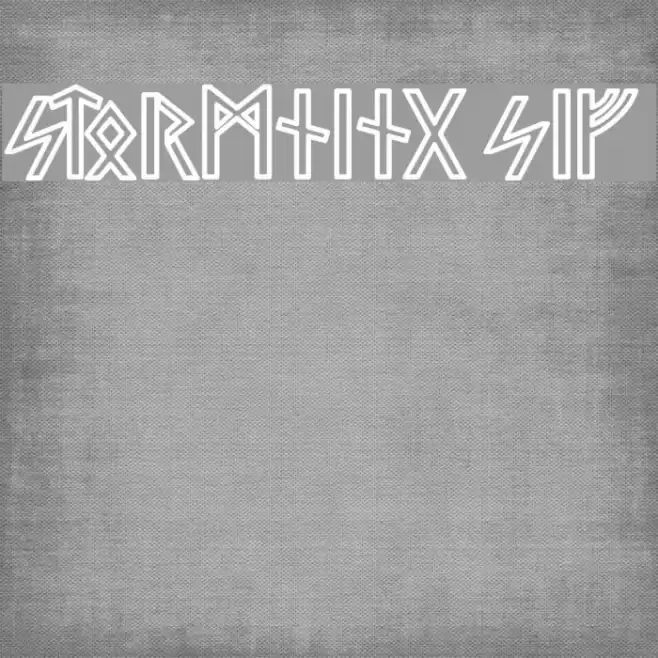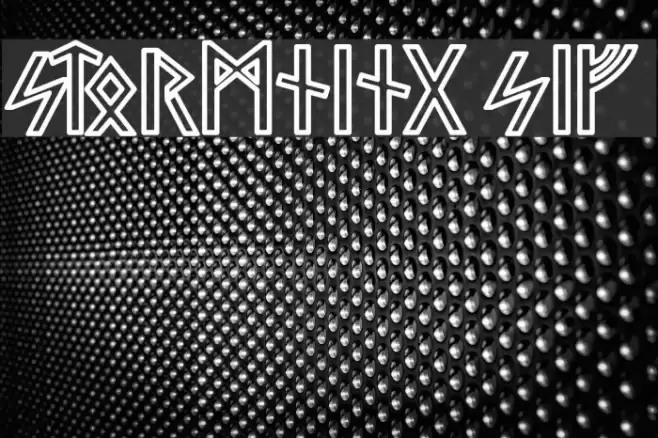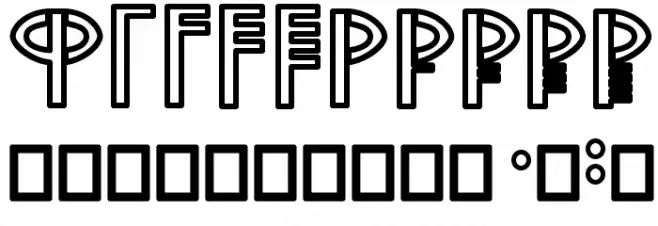
Stormning Sif Font
Stormning Sif Description
This font features a unique, angular design reminiscent of ancient runes or Nordic script. Each character is crafted with sharp, geometric lines that create a sense of mystery and intrigue. The uppercase letters are bold and commanding, while the lowercase letters maintain the same angular style, providing consistency throughout the typeface. Numbers and special characters are designed to match the overall aesthetic, making this font suitable for thematic projects. The outline style adds a modern twist, enhancing its decorative appeal.
A rune-inspired, angular font with a bold outline style from Uncategorized fonts.